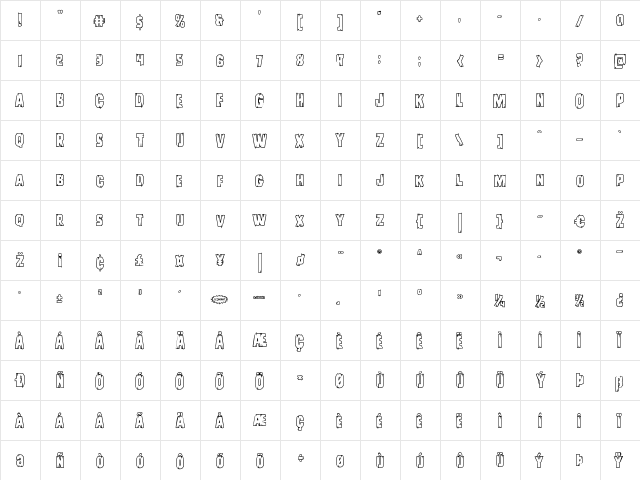
Leatherface Outline Regular
Design Context for Leatherface Outline Typeface
Leatherface Outline is built around its visual character rather than neutral utility — its distinctive forms are designed to make an impression at display sizes.
Font Pairing: Pair with a clean neutral sans-serif for body copy to let Leatherface Outline's character lead without overwhelming the composition.
Pro Tip: Treat Leatherface Outline as the centrepiece of your typographic hierarchy. One strong heading set in a decorative face can carry an entire layout.